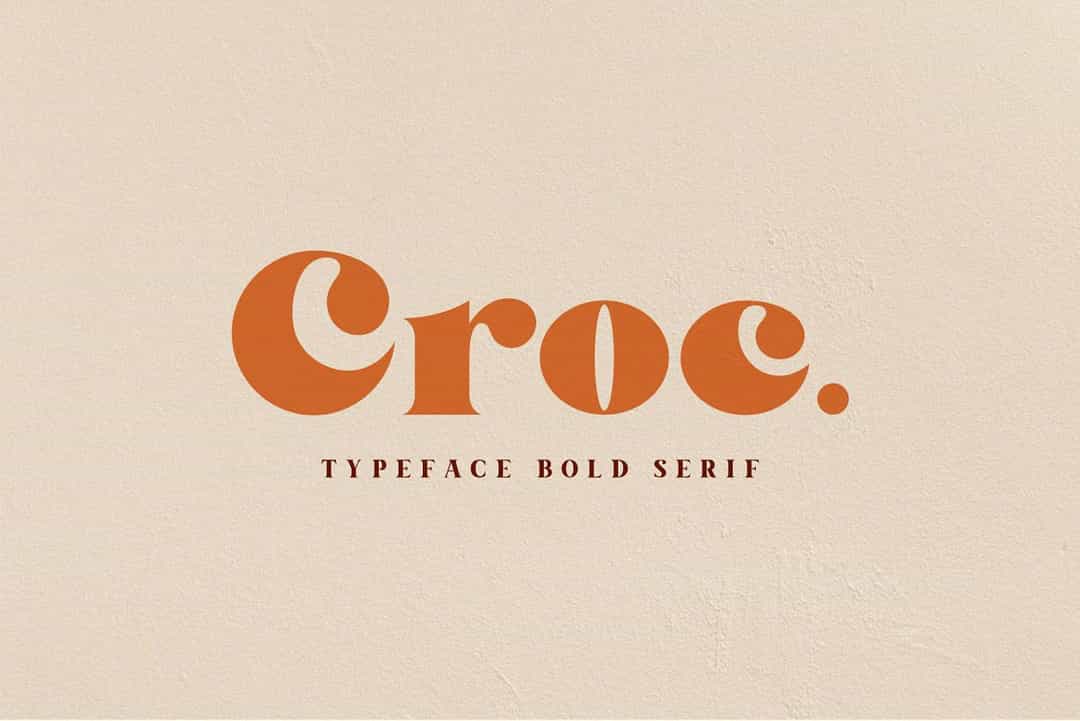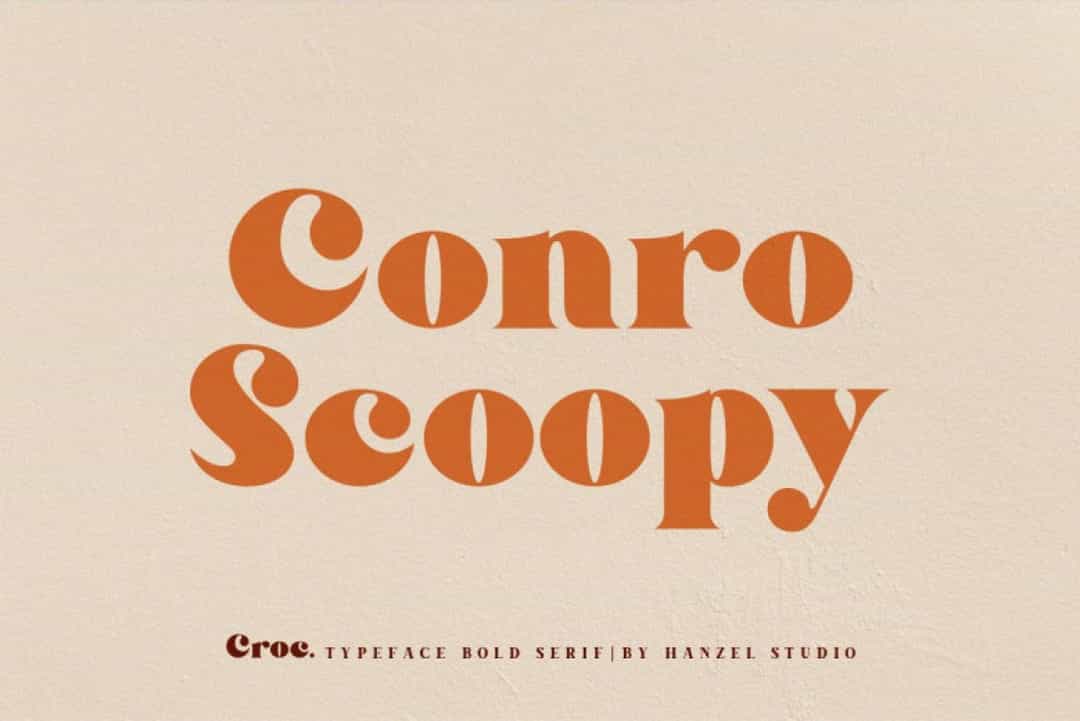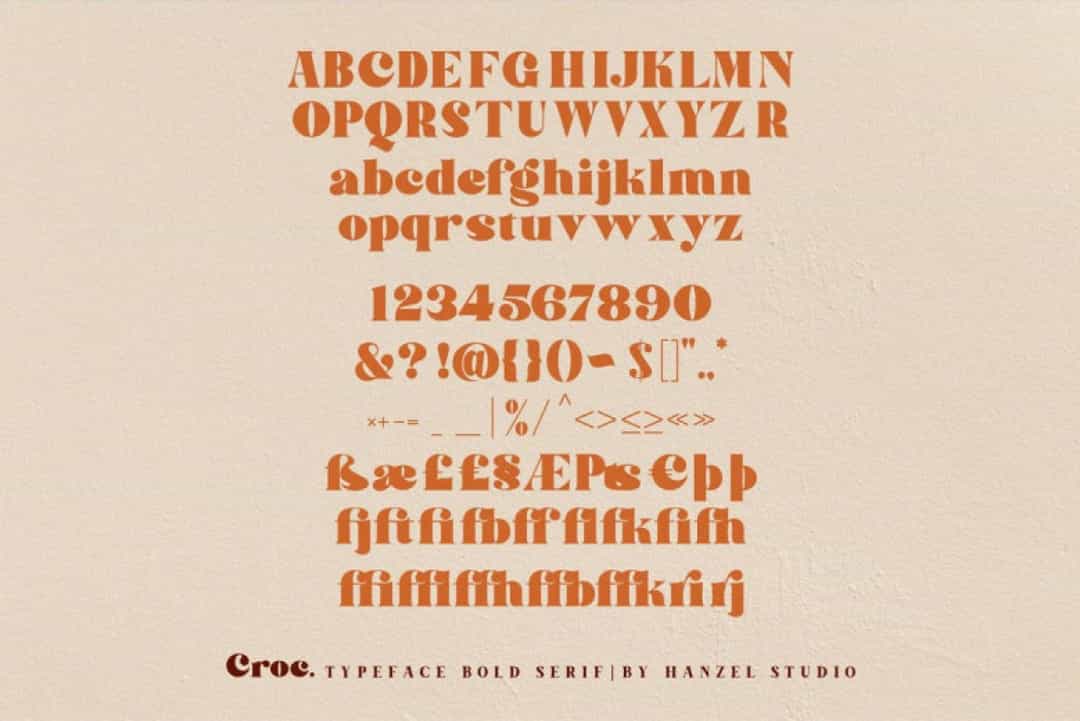
Croc Font is an eye-catching typeface featuring its signature wedge serif, making an iconic mid-century statement! Ideal for logos, editorial, and web designs. Its sharp serifs combined with fine strokes give this font its hallmark mid-century aesthetic.